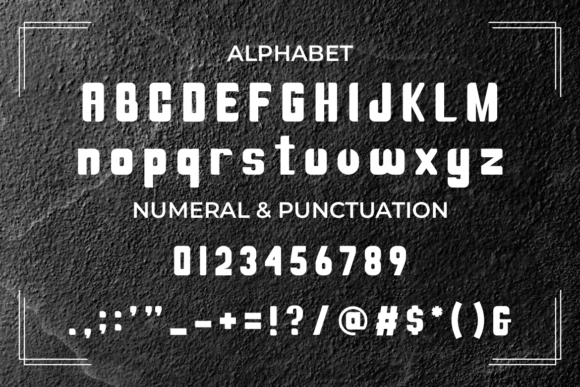
Introduction to Shunzhi Font
Shunzhi is a modern and bold sans serif display font.
Shunzhi is a modern and bold sans serif display font. Trendy and stylish, this font will elevate each of your creations
Key Features of Shunzhi Font
Why Choose Shunzhi Font?